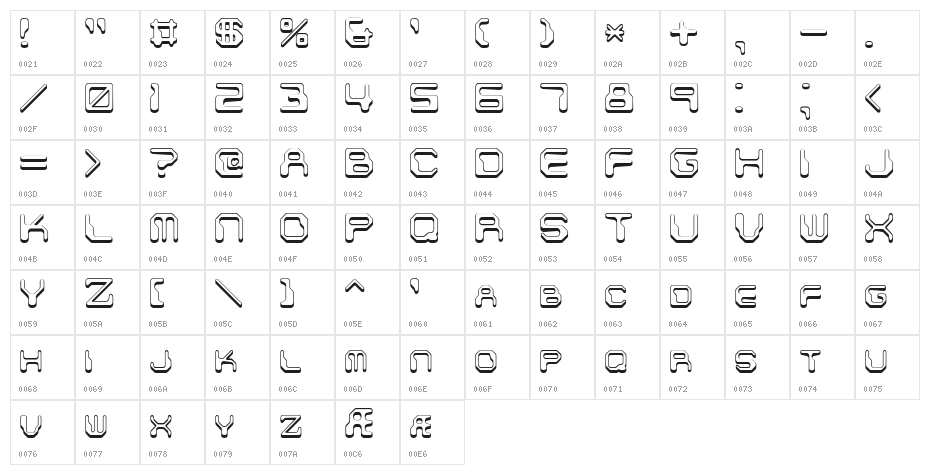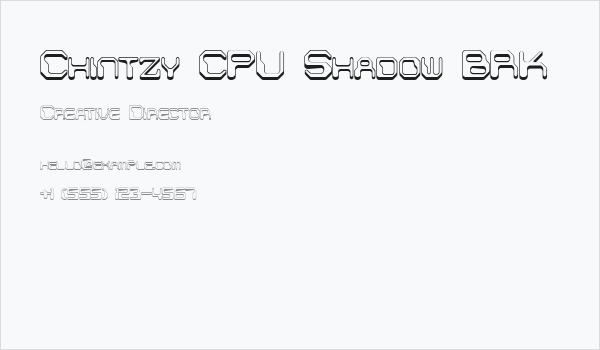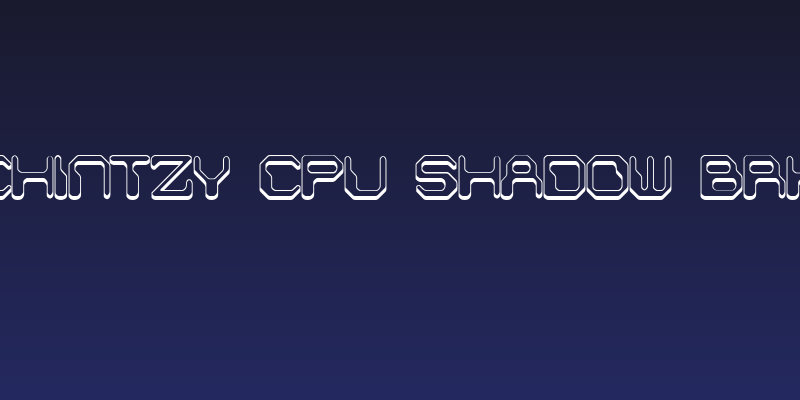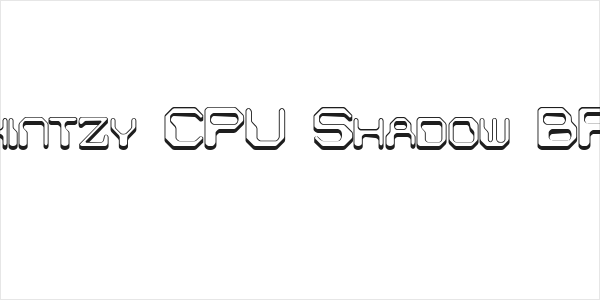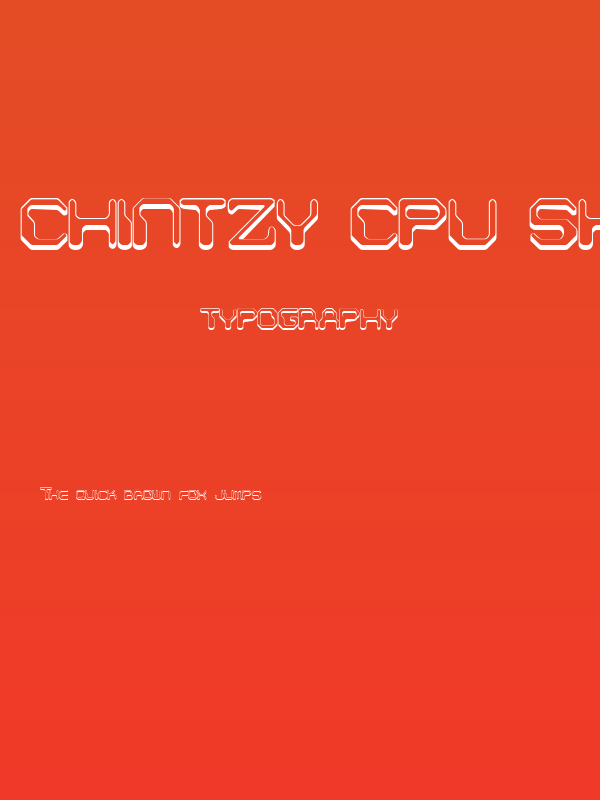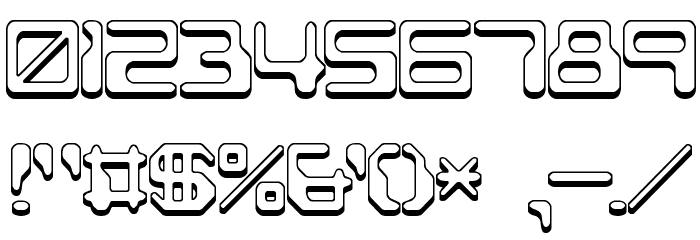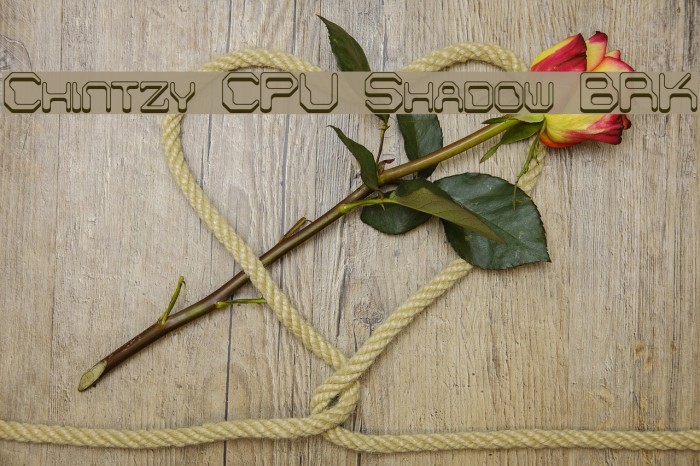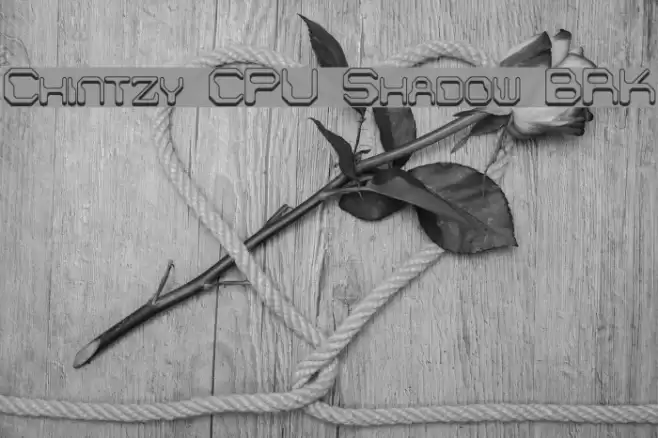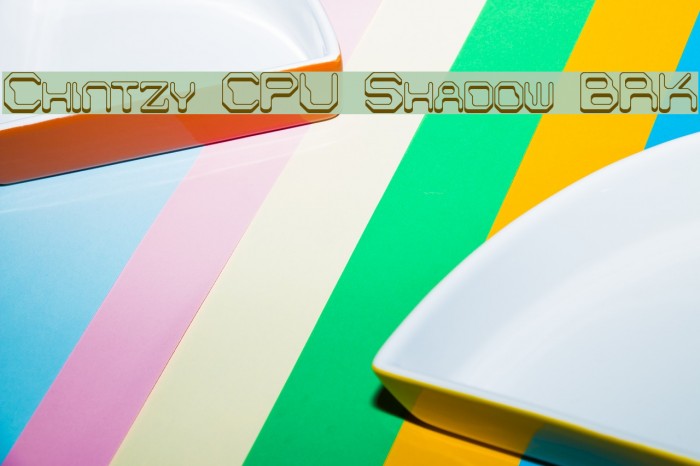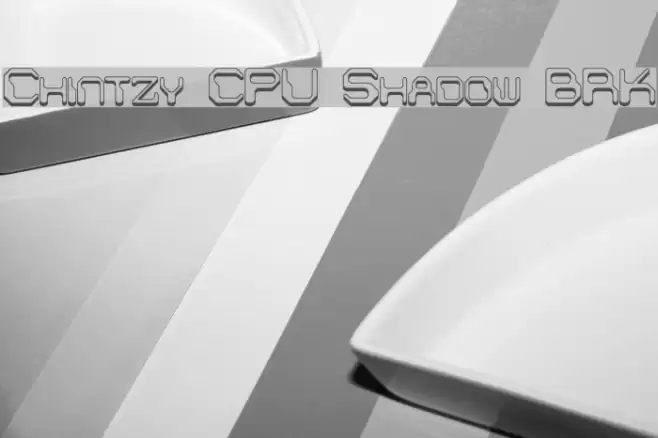
Chintzy CPU Shadow BRK Font
Chintzy CPU Shadow BRK Description
This font features a futuristic and digital-inspired design, characterized by its bold, geometric shapes and shadowed outlines. The letters are constructed with a consistent stroke width that gives a sense of uniformity and precision. The shadow effect adds depth, making the characters appear three-dimensional. This style is reminiscent of early computer graphics and technology themes, making it ideal for projects that require a modern, tech-savvy aesthetic. The font maintains a high level of legibility despite its decorative elements, with each character clearly defined and distinct.
| Proposed Projects | Ideal for technology branding, video game titles, sci-fi movie posters, and digital media projects. |